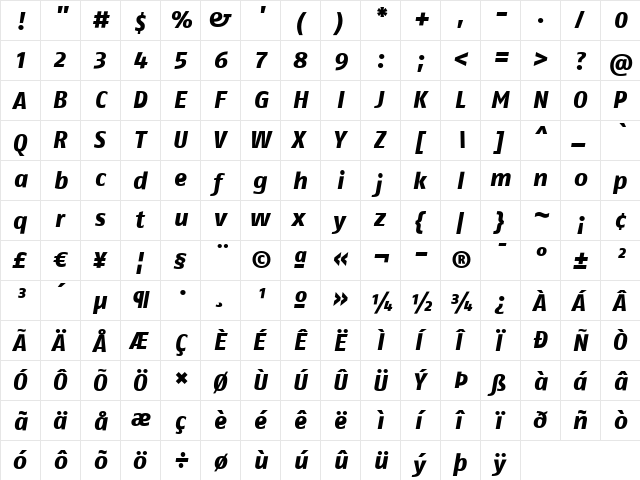
FagoNoLf ItalicExtrabold
Design Context for FagoNoLf Typeface
FagoNoLf is a composed and adaptable typeface that performs quietly and consistently across a wide range of design contexts. The slanted form adds forward momentum and visual energy. Its bold stroke weight gives it real presence on the page.
Pro Tip: Try FagoNoLf for annotation and caption copy alongside an upright companion — the contrast in angle creates a dynamic but ordered typographic system.